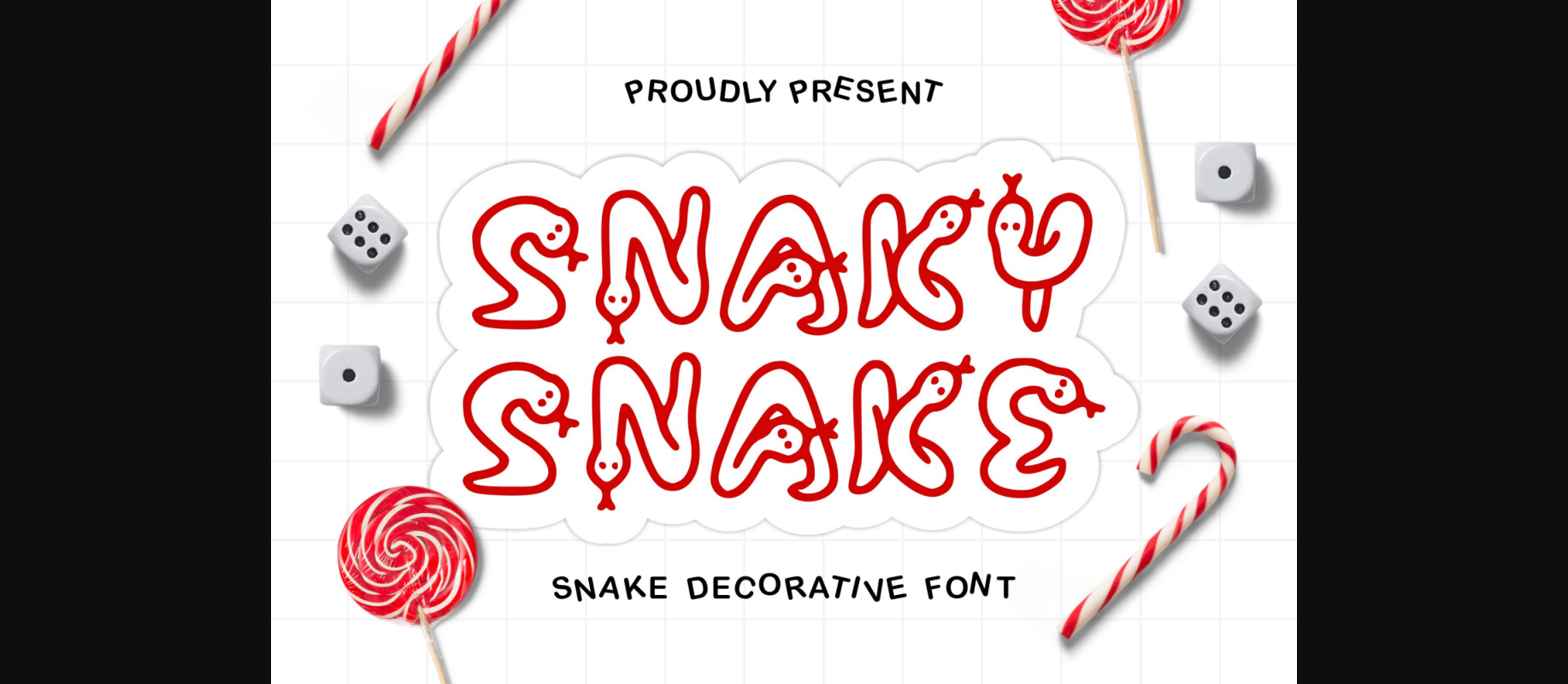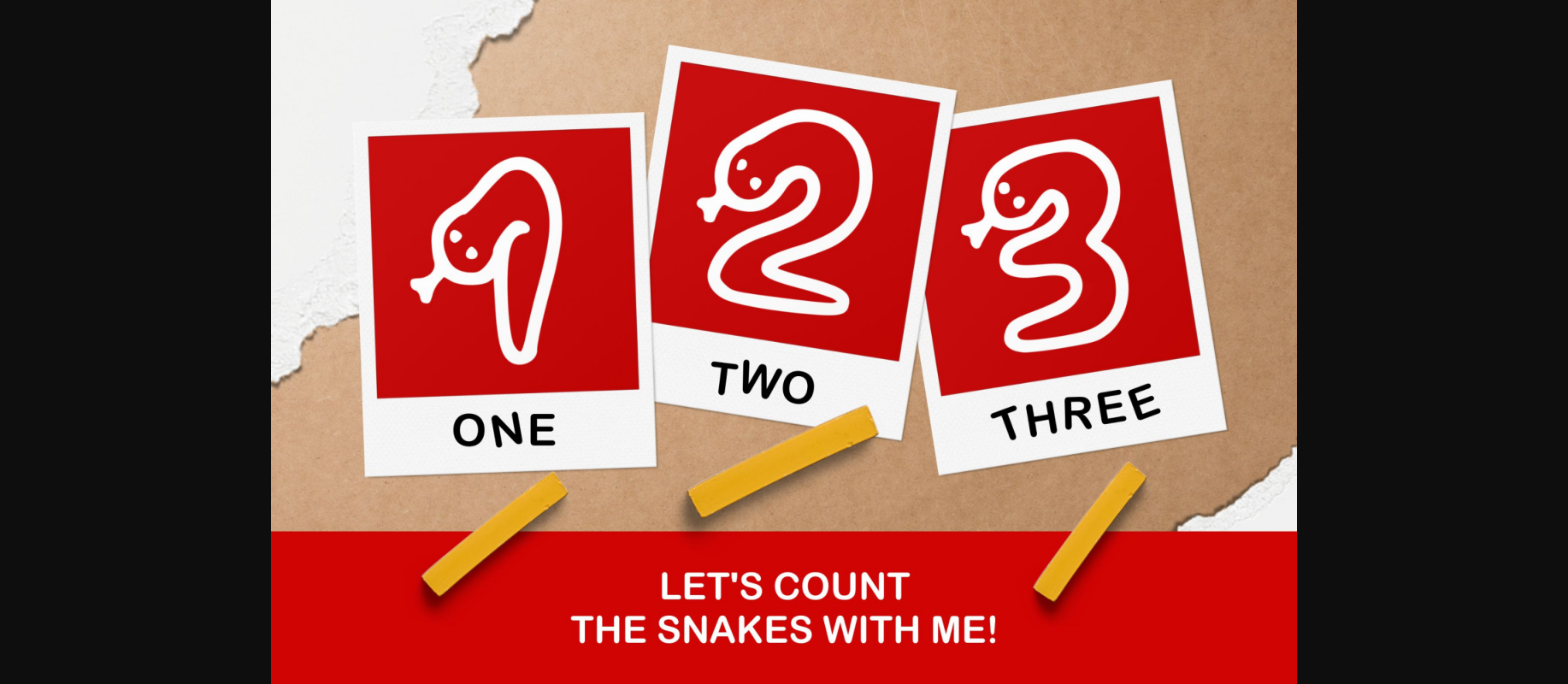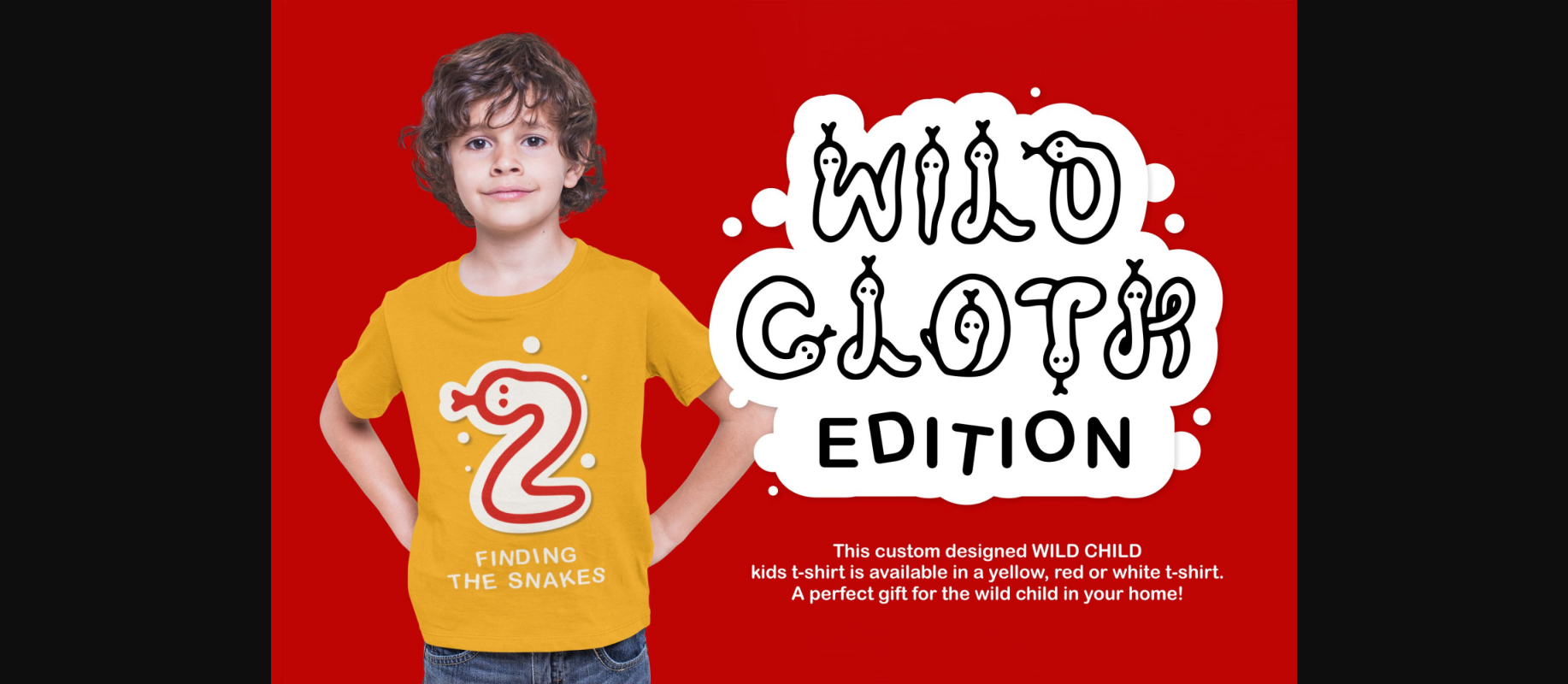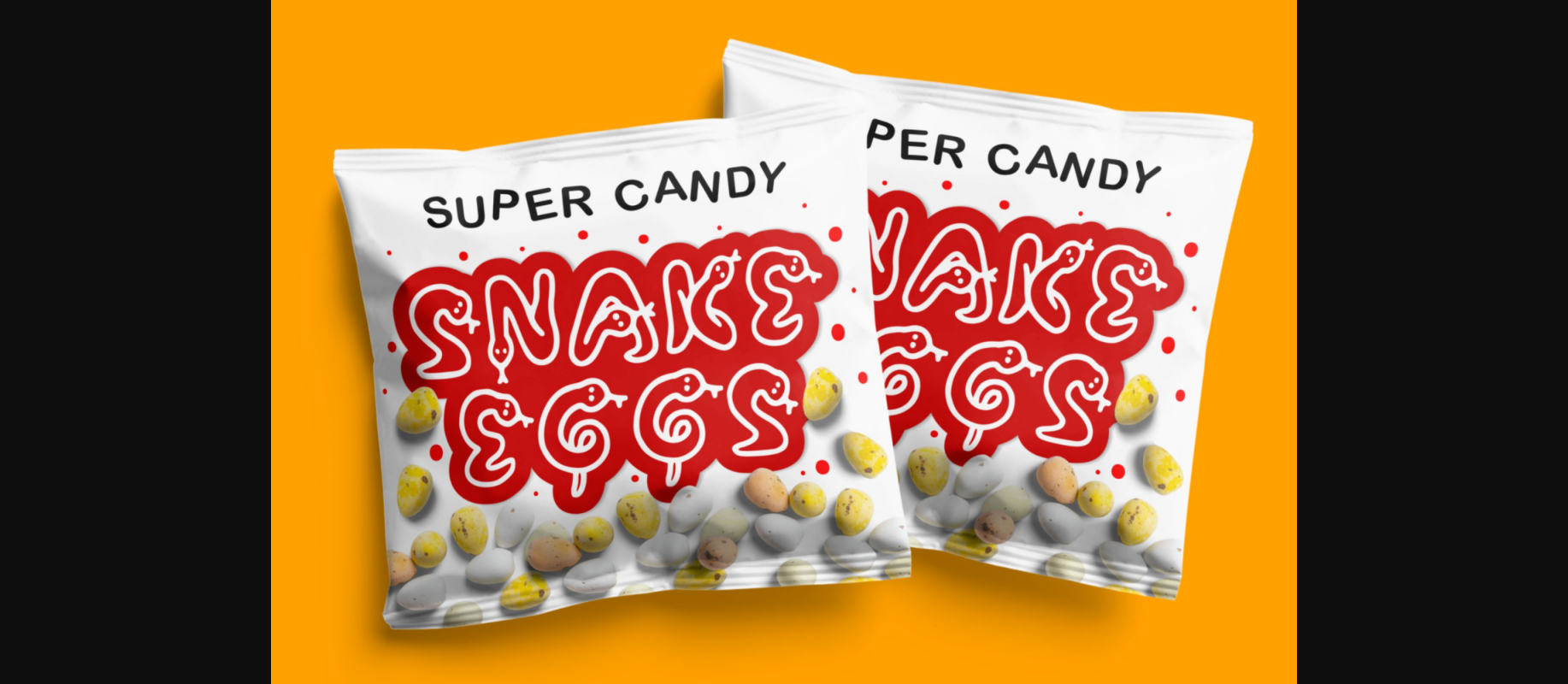
About Snaky Snake Font
Snaky Snake is a decorative font. This typeface has smooth curves and a visual style that embodies charm and elegance in every letter, making your work look stunning.
A versatile font that works in both large and small sizes, suitable for a wide variety of projects such as a display for headings, logos, invitations, branding, magazine, photography, card, product packaging, product mockup, mugs, posters, labels, signatures, editorials, art deco, any type of advertising purpose.